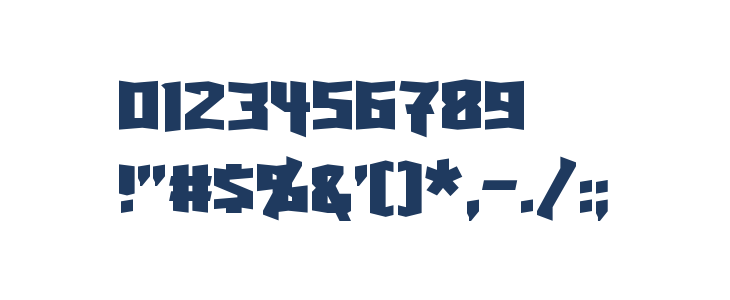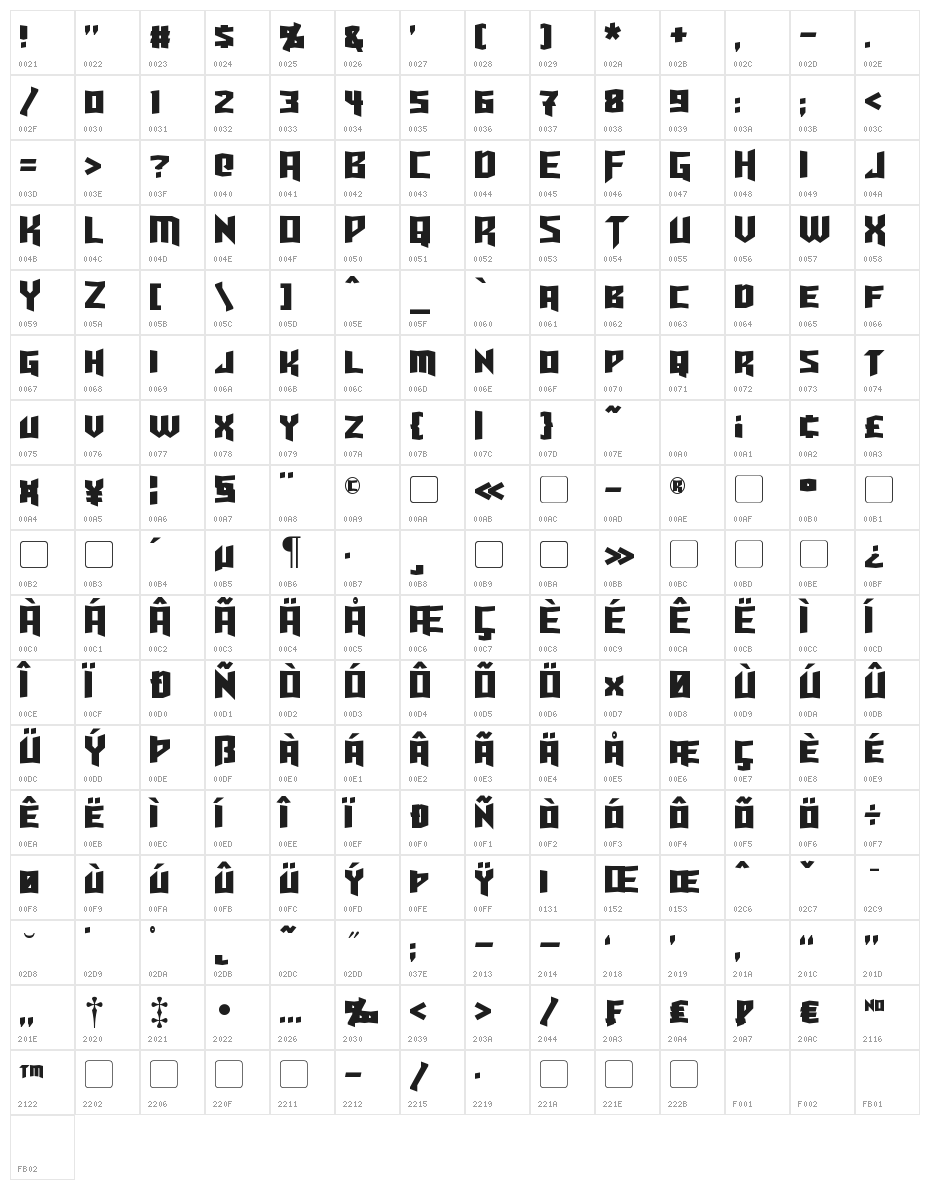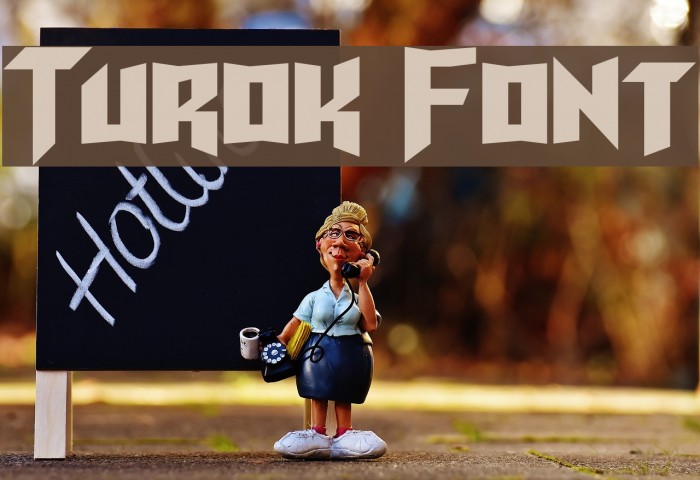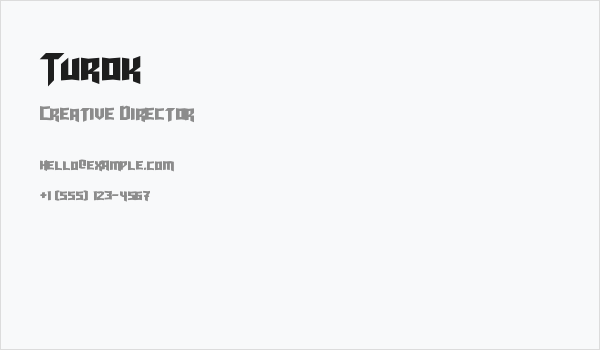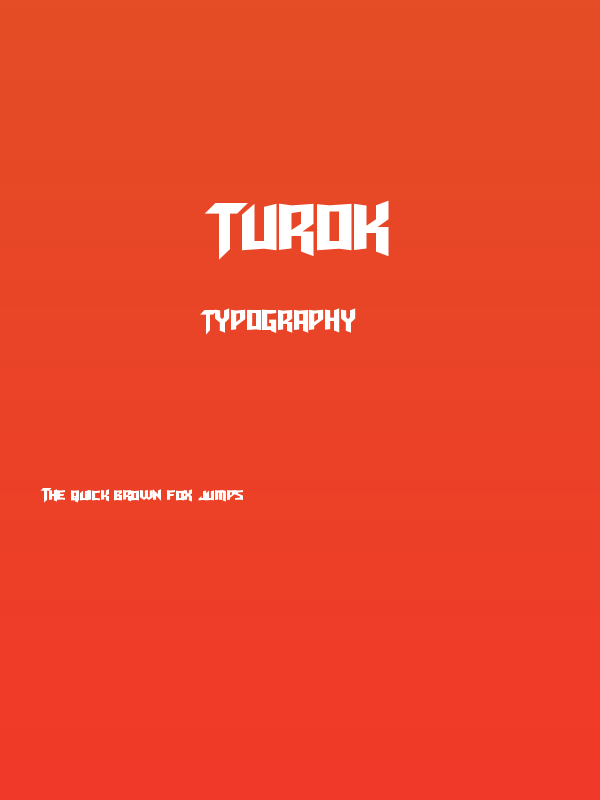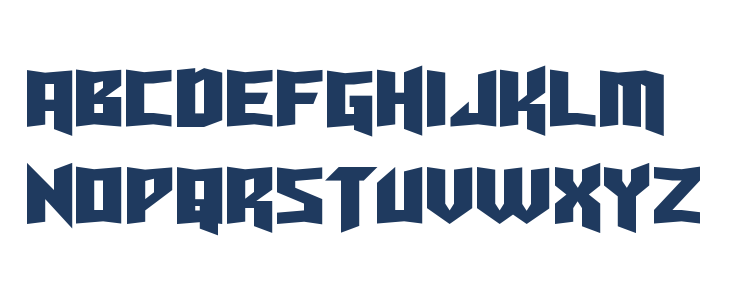
Turok Font
Turok Description
This font features a bold and angular design, characterized by sharp edges and geometric forms. The uppercase and lowercase letters maintain a consistent style, with a strong emphasis on vertical and horizontal lines. The numbers and special characters follow the same aesthetic, providing a cohesive look across all glyphs. The font's unique style is reminiscent of a futuristic or sci-fi theme, making it stand out with its distinct and edgy appearance.
Overall StyleFuturistic, Edgy
Proposed ProjectsIdeal for video game titles, movie posters, or any project requiring a bold, futuristic look.